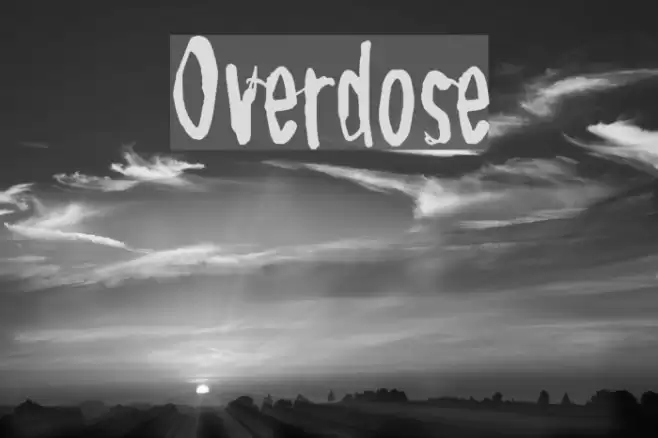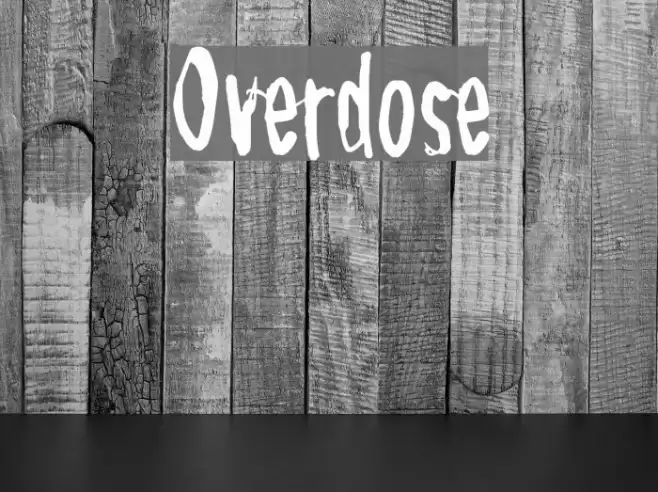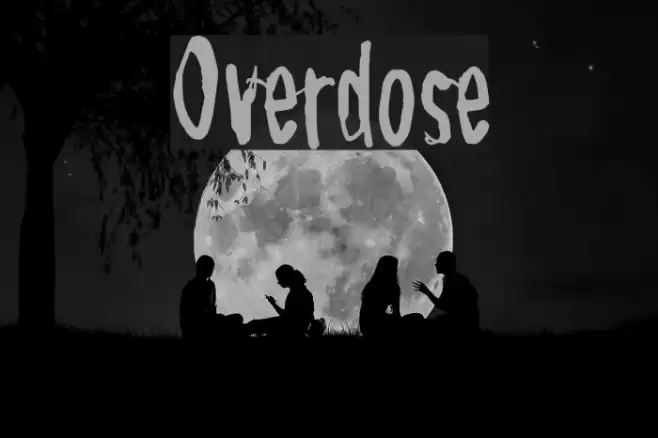
Overdose Font
Overdose Description
This font features a bold, hand-drawn style with a slightly irregular and organic appearance. The characters have a rough, textured look, giving them a raw and expressive feel. The uppercase and lowercase letters maintain a consistent height, while the numbers and special characters follow the same stylistic approach. The strokes are thick and uneven, adding to the font's dynamic and energetic personality. This font is ideal for projects that require a touch of creativity and individuality, such as artistic posters, album covers, or branding for unconventional products.
A bold, hand-drawn font with a rough, textured appearance from Uncategorized fonts.
- Proposed Projects: Artistic posters, album covers, branding for unconventional products.